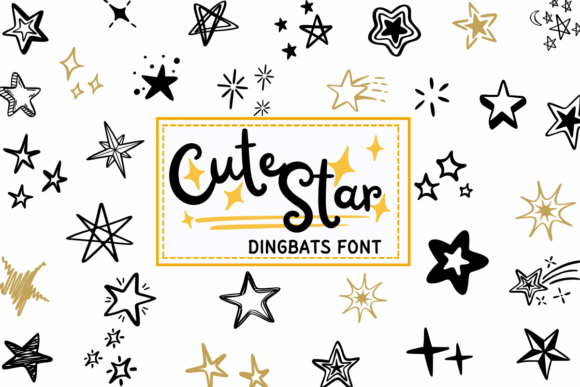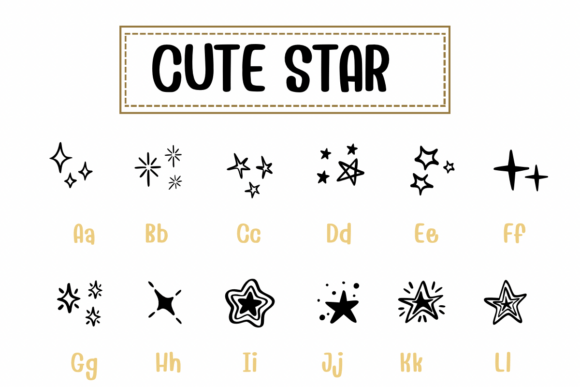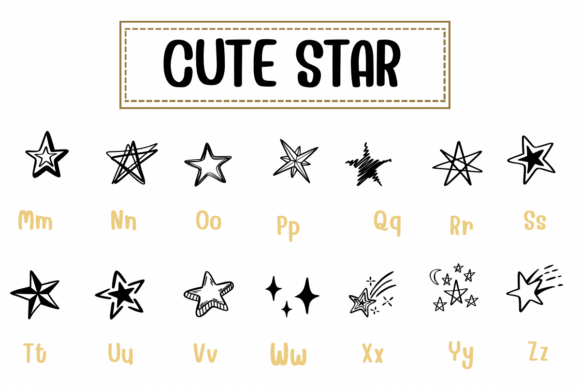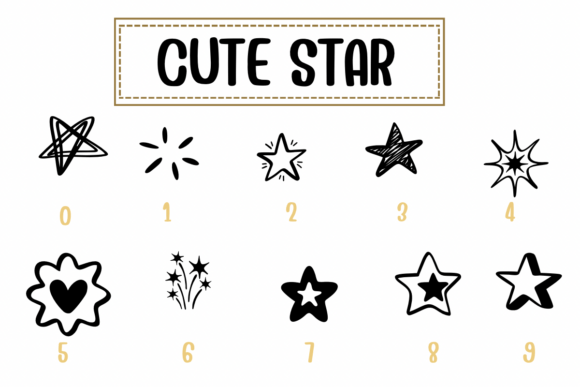
Cute Star Font
About the Cute Star Font
Experience the unique personality of Cute Star Font, a font designed for impact. Cute Star is a dingbats font with a sketched style. This font can enhance your creative projects such as wedding invitations, DIY, crafts, decorations, logos, and many other creative ideas.
Cute Star’s sketched style makes it ideal for projects requiring a playful, handmade feel. It excels in logo design, short headlines, and packaging where its whimsical nature adds visual interest. However, its low readability makes it unsuitable for body text or UI elements requiring clear legibility.
Consider pairing Cute Star with a clean sans-serif like Open Sans for a balanced contrast, or a more elegant serif like Lora for a sophisticated touch. For a bolder approach, a geometric sans-serif such as Montserrat could work well.
The font’s overall personality is undeniably friendly and approachable, making it perfect for brands targeting a younger demographic or those focused on crafting, children’s products, or similar lighthearted industries.
Cute Star Font Usage Examples
Cute Star Font Example